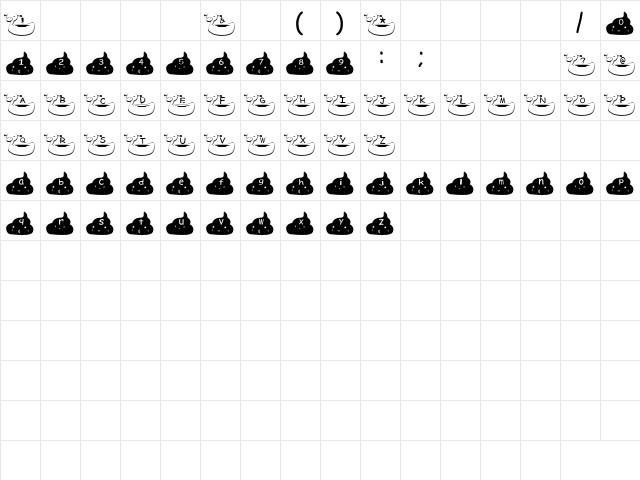
omaru Font Regular
Design Context for omaru Font Typeface
omaru Font is a composed and adaptable typeface that performs quietly and consistently across a wide range of design contexts.